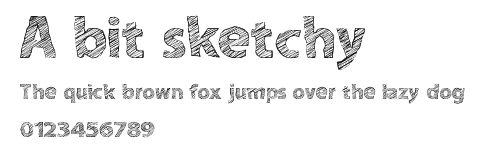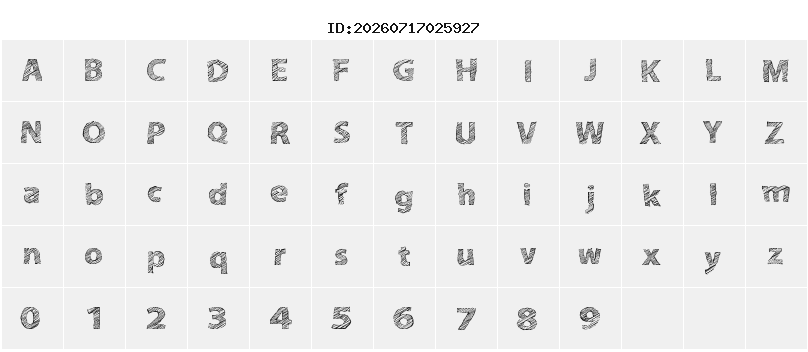
A bit sketchy.ttf
A bit sketchy Preview
• Font Name: A bit sketchy
• Full Font Name: A bit sketchy regular
• Character Count: 83
About A bit sketchy.ttf
A bit sketchy.ttf is a modern, elegant sans-serif font designed for ultimate readability and visual harmony. Perfect for branding, headlines, web design, and print materials.